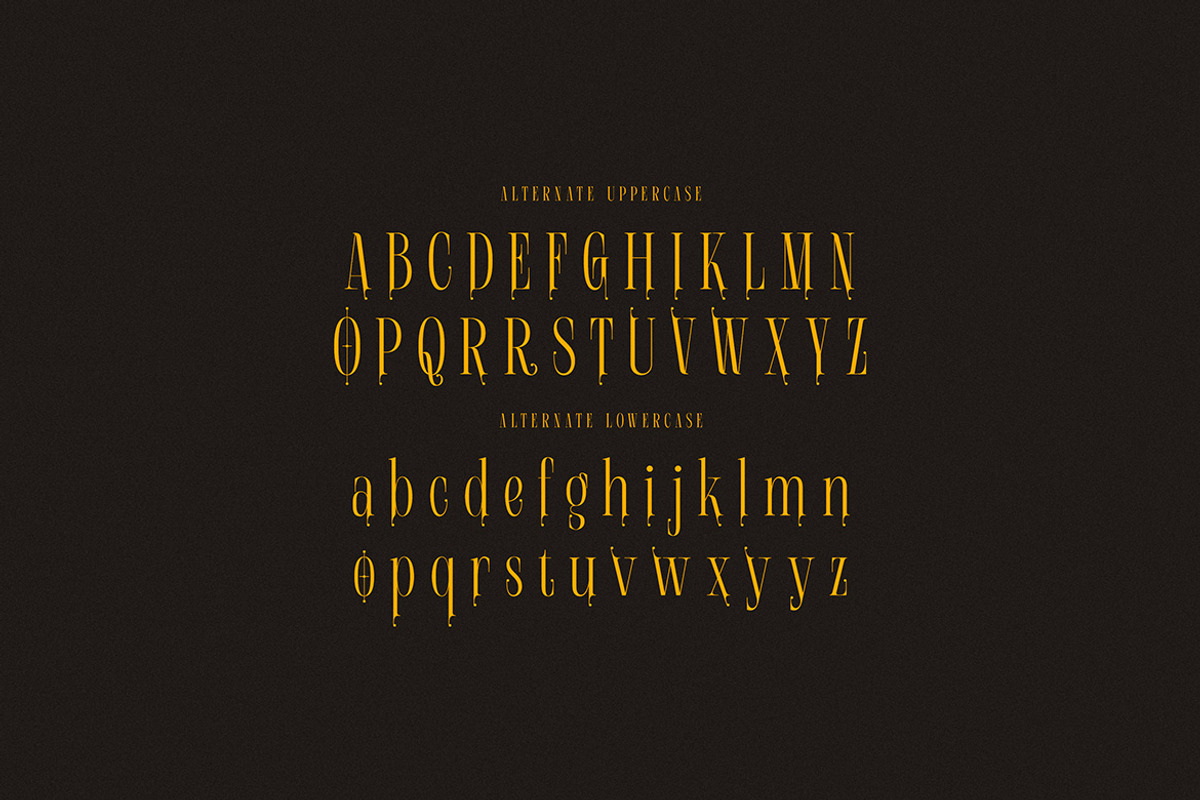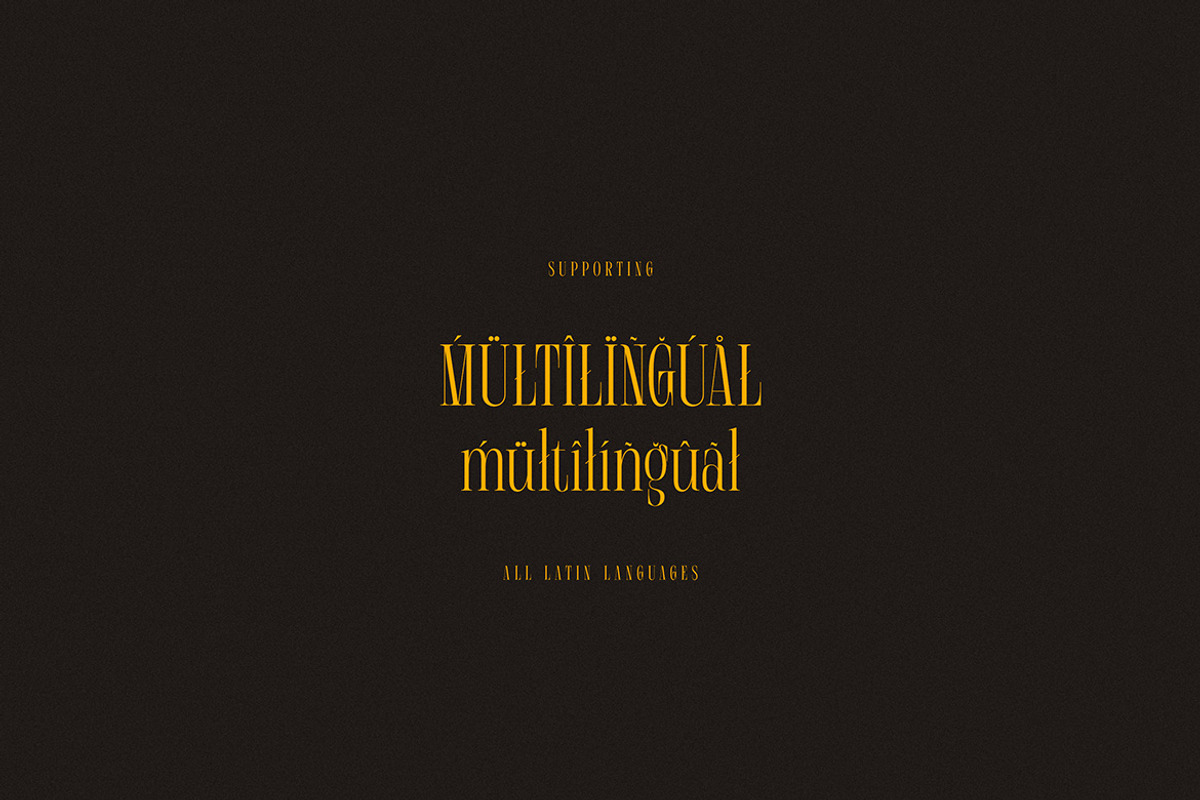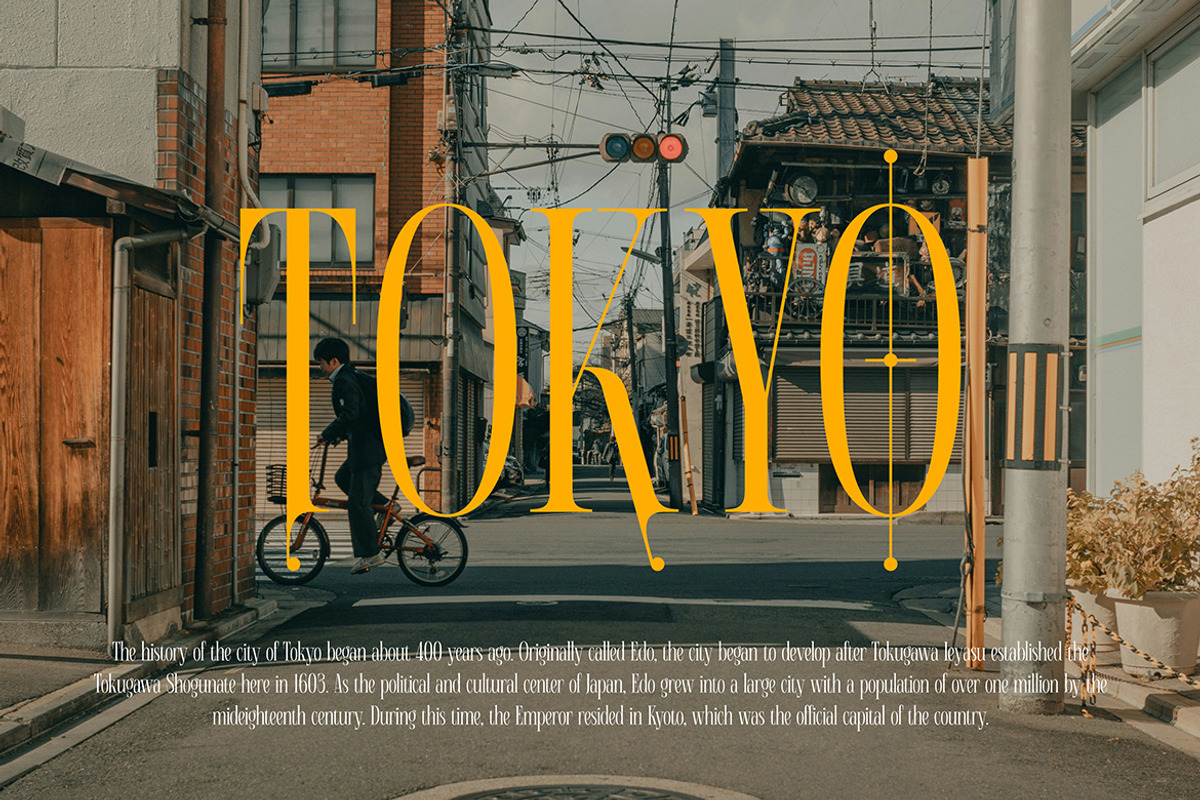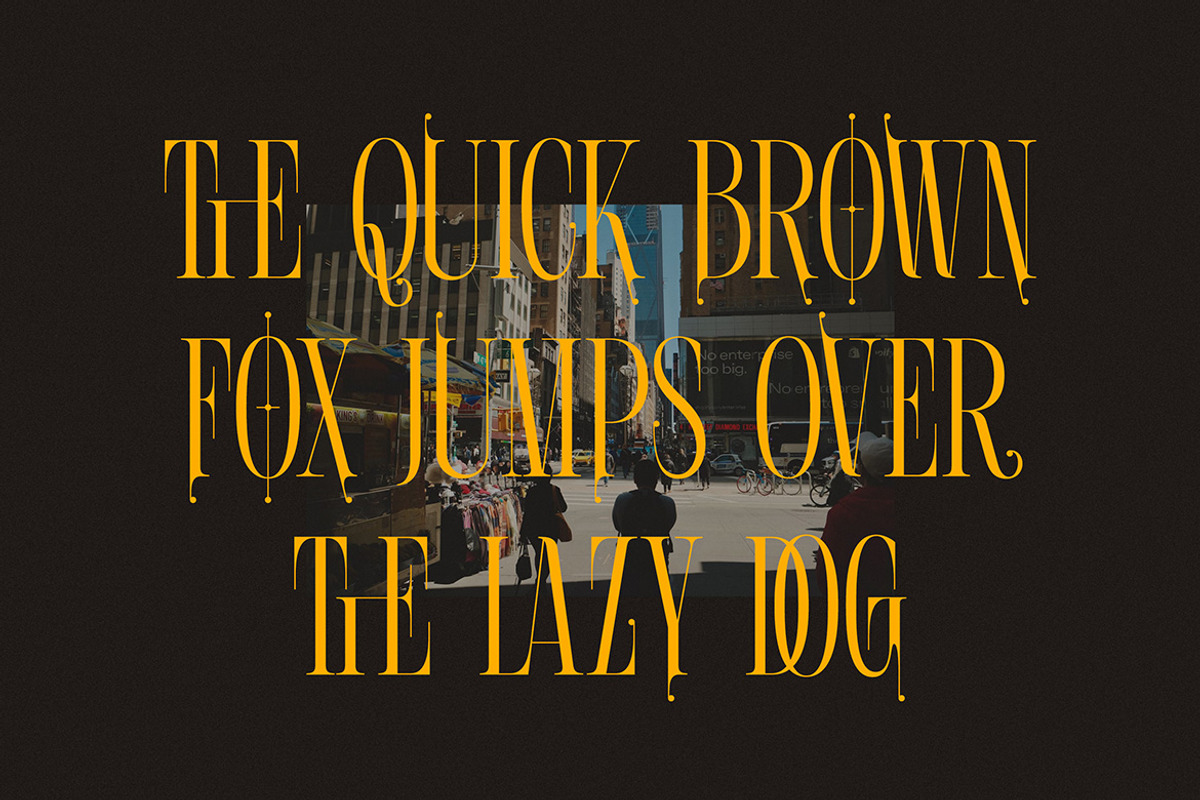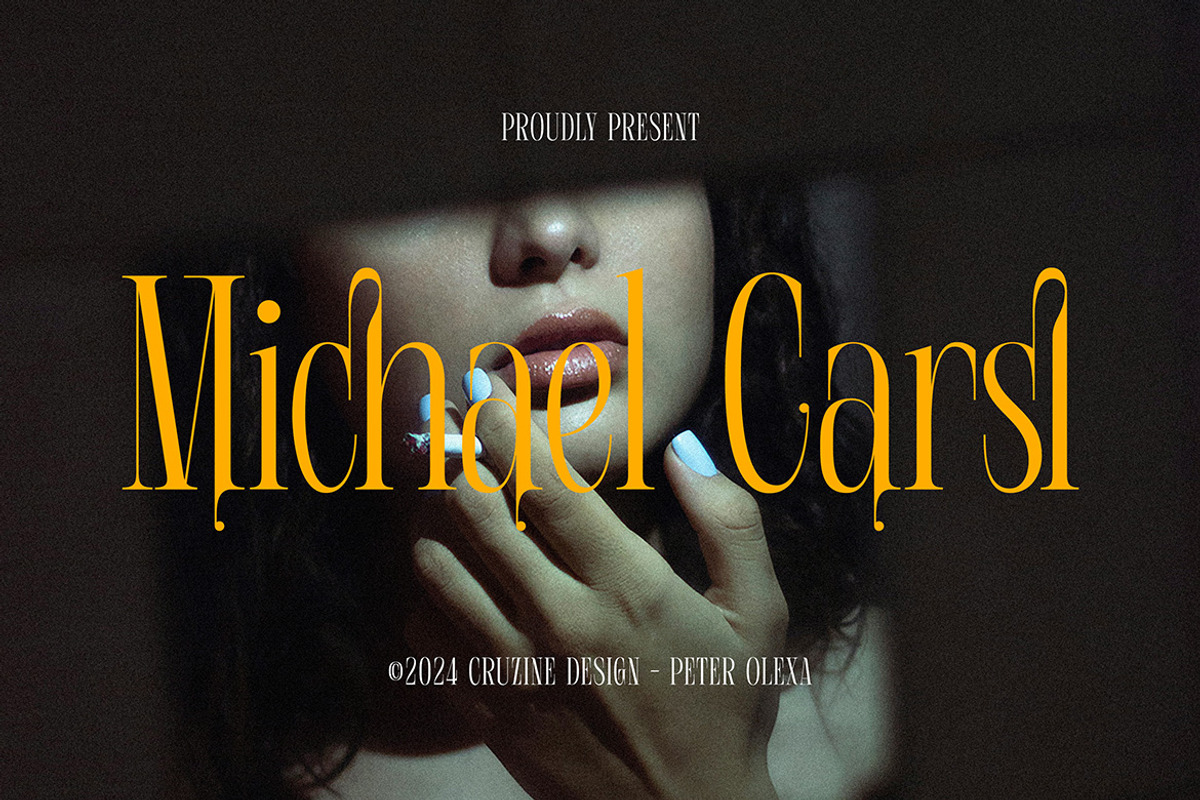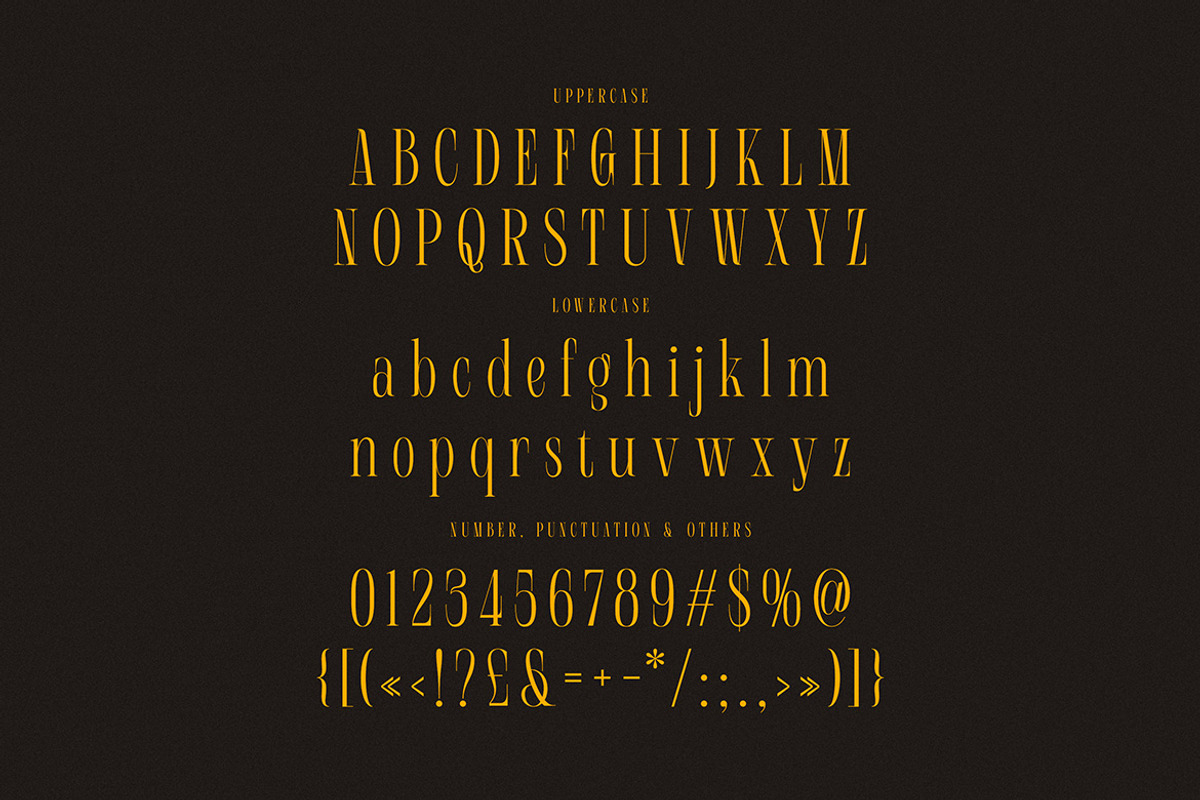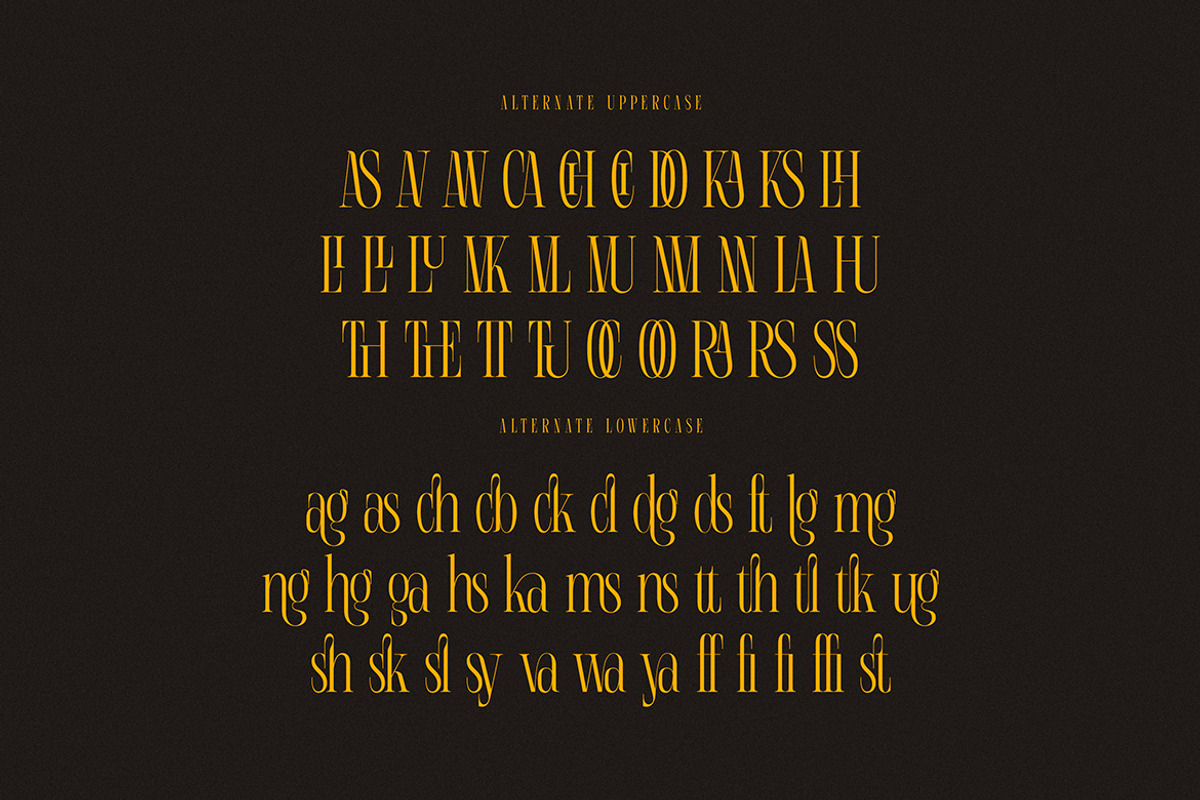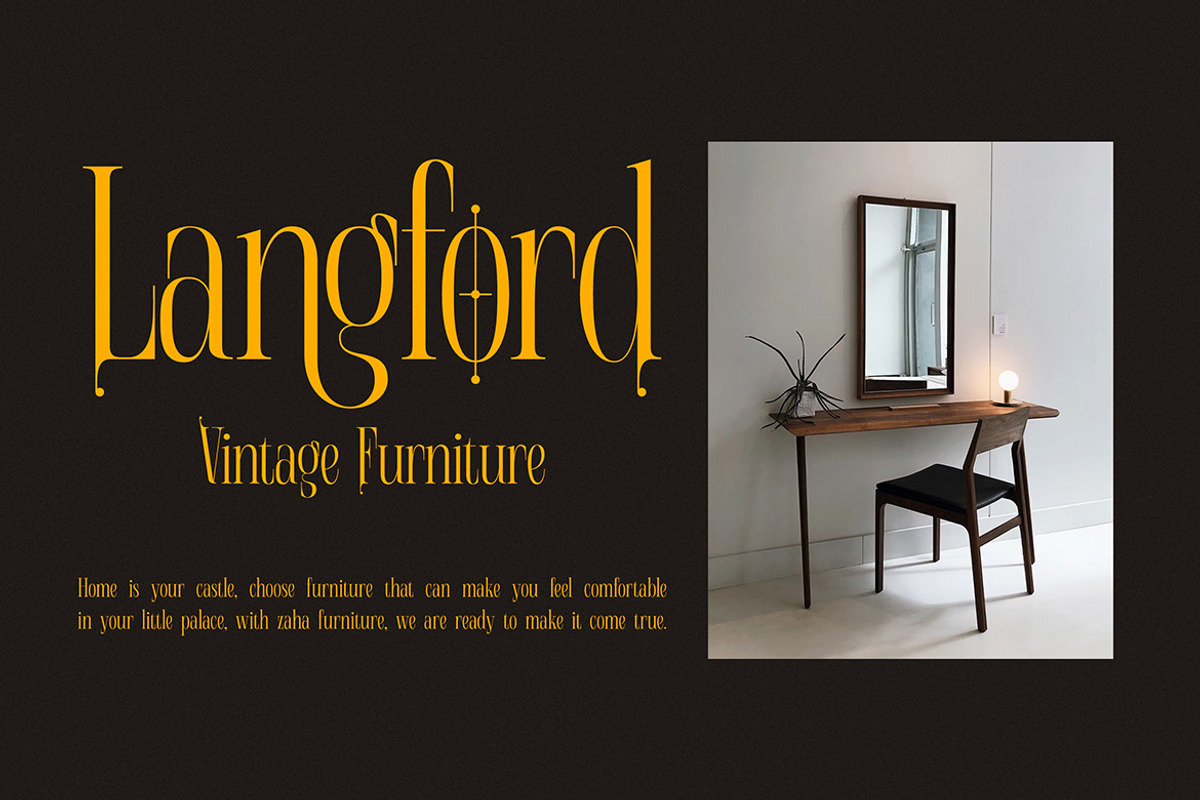
Michael Carsl Condensed Serif
Trendy, elegant, luxury, creative, condnesed & modern style serif font for your new fancy projects. Stylish, romantic and classic style on Michael Carsl font will be great for any modern or classy branding project. Lot of alternates and ligatures will help you to create unique and original logo design or website header! Enjoy :)
- Alternate characters & lot of ligatures
- Great for modern branding projects!